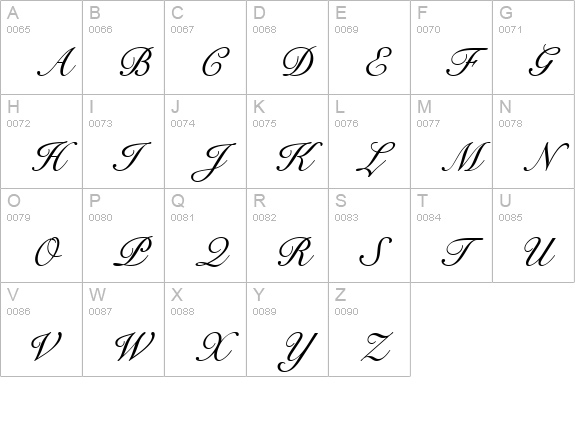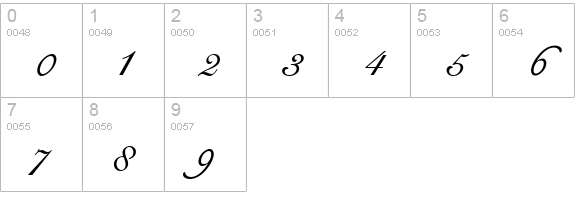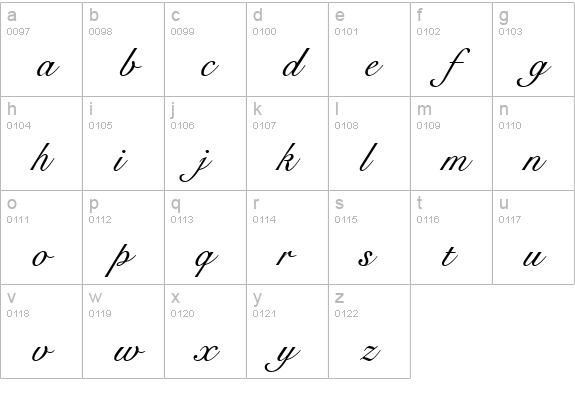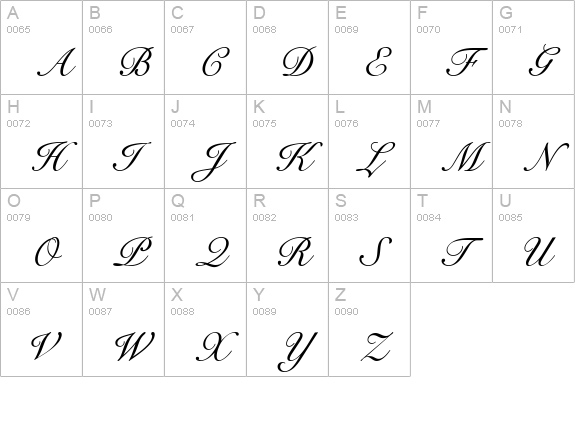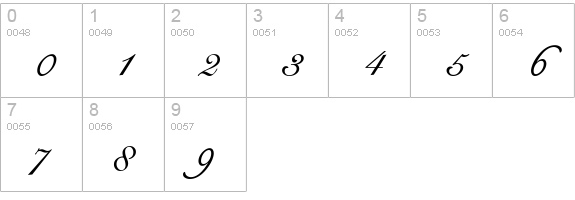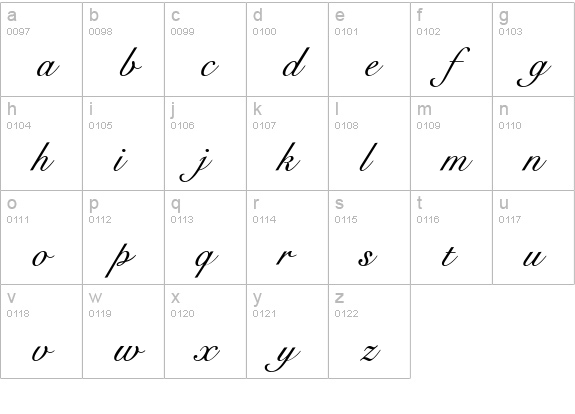
Signet Roundhand Italic Font Details
Signet Roundhand Italic is a distinctive, italic variant in the Signet typeface family \xE2\x80\x94 well suited to design and typography projects.
Signet Roundhand Italic font is a stunning calligraphic typeface that exudes elegance and sophistication. Its graceful curves and delicate strokes make it the perfect choice for projects that require a touch of sophistication and refinement. This font's italic style adds a sense of fluidity and movement to any design, making it ideal for invitations, wedding stationery, branding materials, and more. Its versatility allows it to be used in both formal and informal contexts, seamlessly adapting to any creative vision. With its impeccable legibility, Signet Roundhand Italic font ensures that your message is conveyed with clarity and style. Its meticulously crafted letterforms create a harmonious balance between tradition and modernity, making it a timeless choice for projects of all kinds. What sets Signet Roundhand Italic font apart is not only its impeccable design but also its availability. Unlike many other premium fonts, Signet Roundhand Italic font is freely available to download at FontsMarket.com. This means that you can enjoy its beauty and craftsmanship without any financial constraints. Whether you are a professional designer or an amateur enthusiast, this font allows you to bring your creative vision to life without compromising on quality. So, why wait? Download Signet Roundhand Italic font today and experience the beauty and elegance it brings to your designs. Let its flowing lines and graceful curves elevate your projects and leave a lasting impression on your audience.